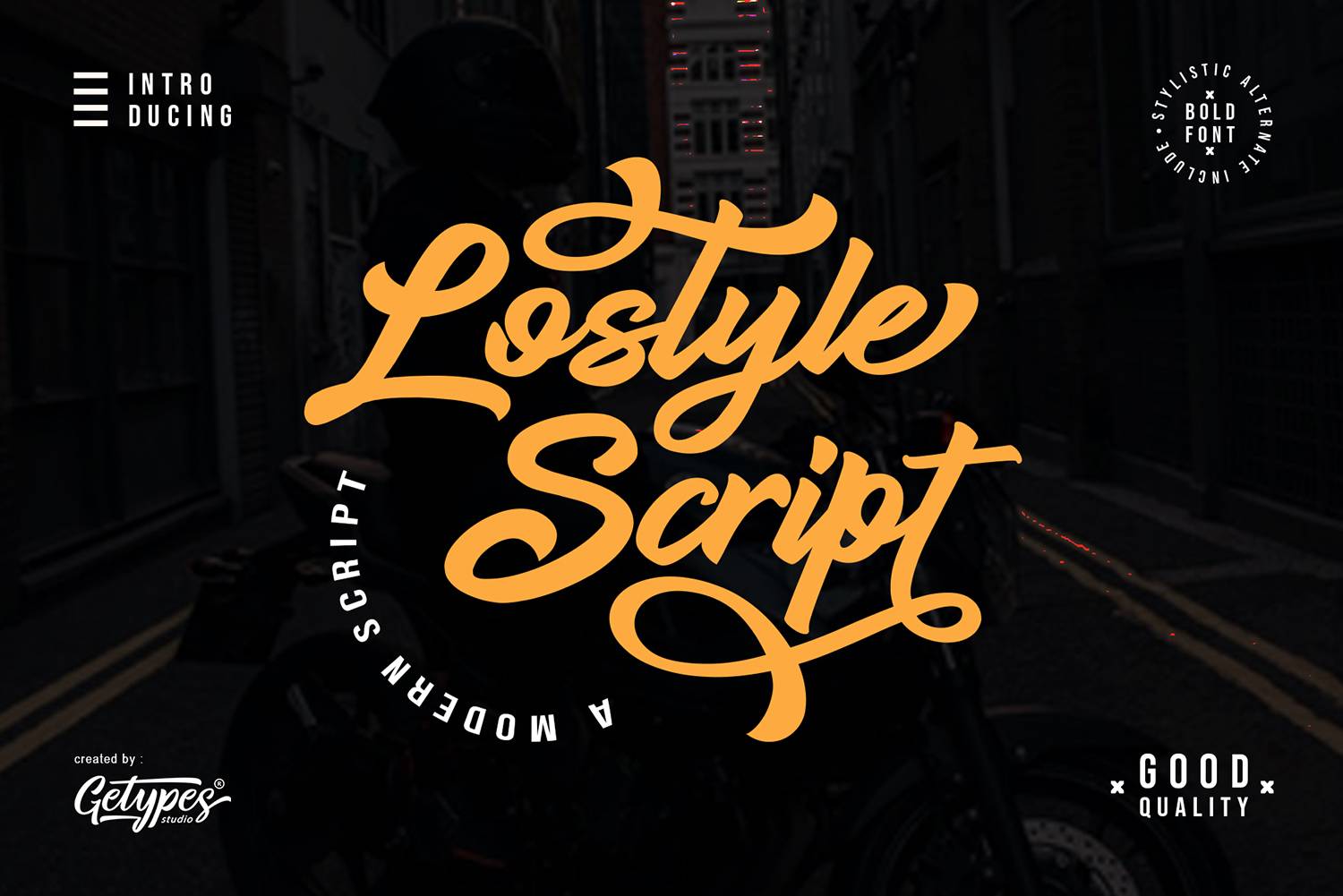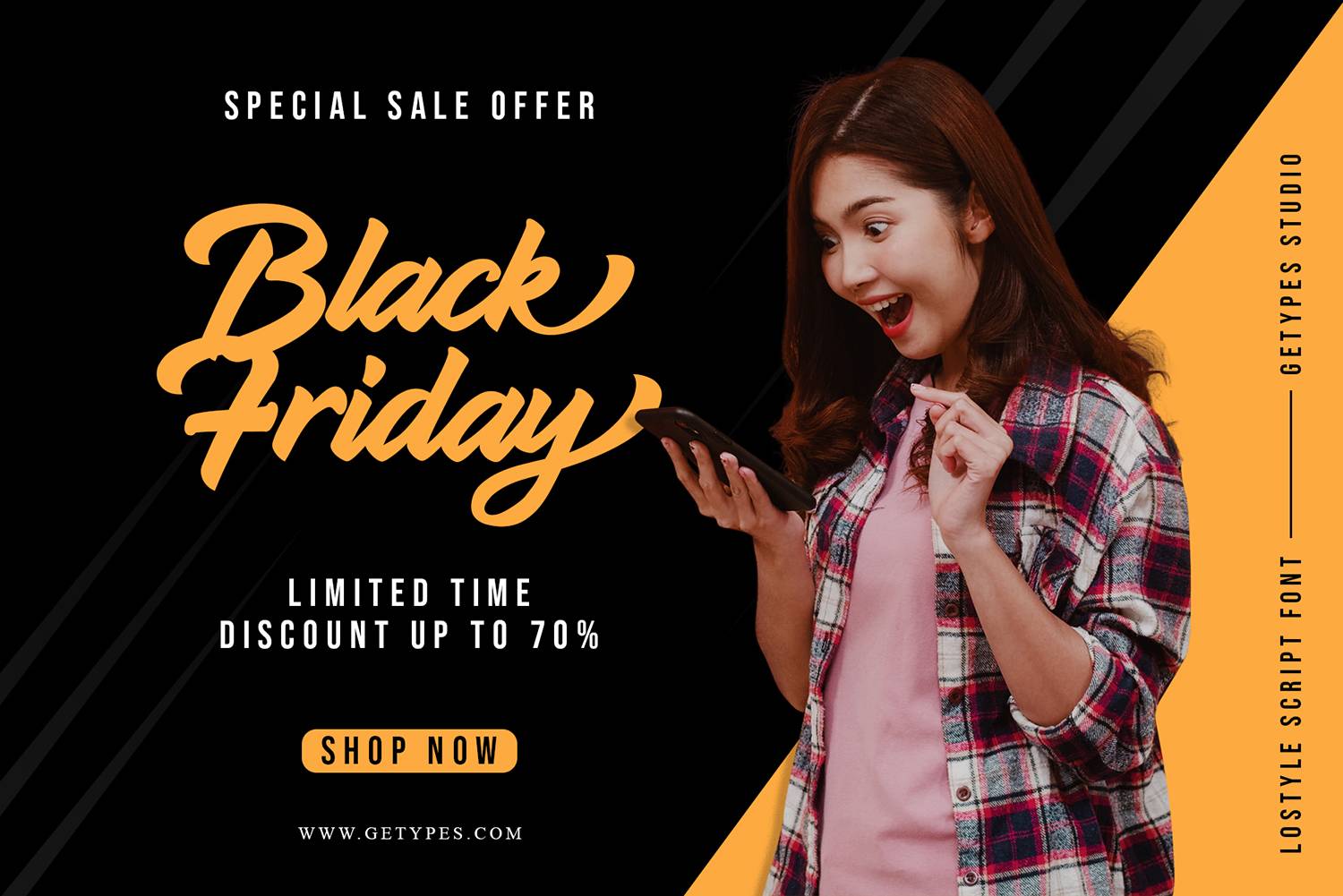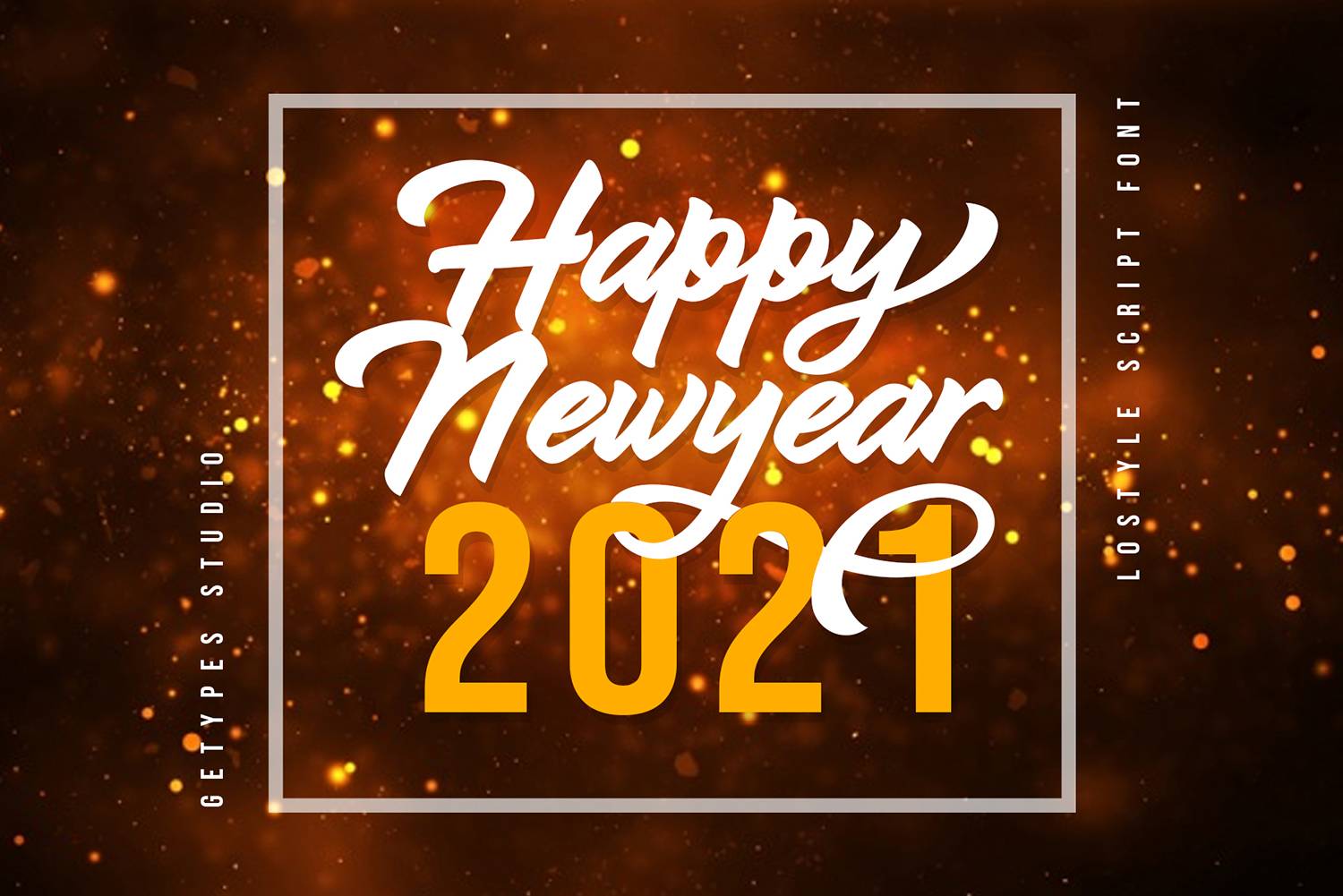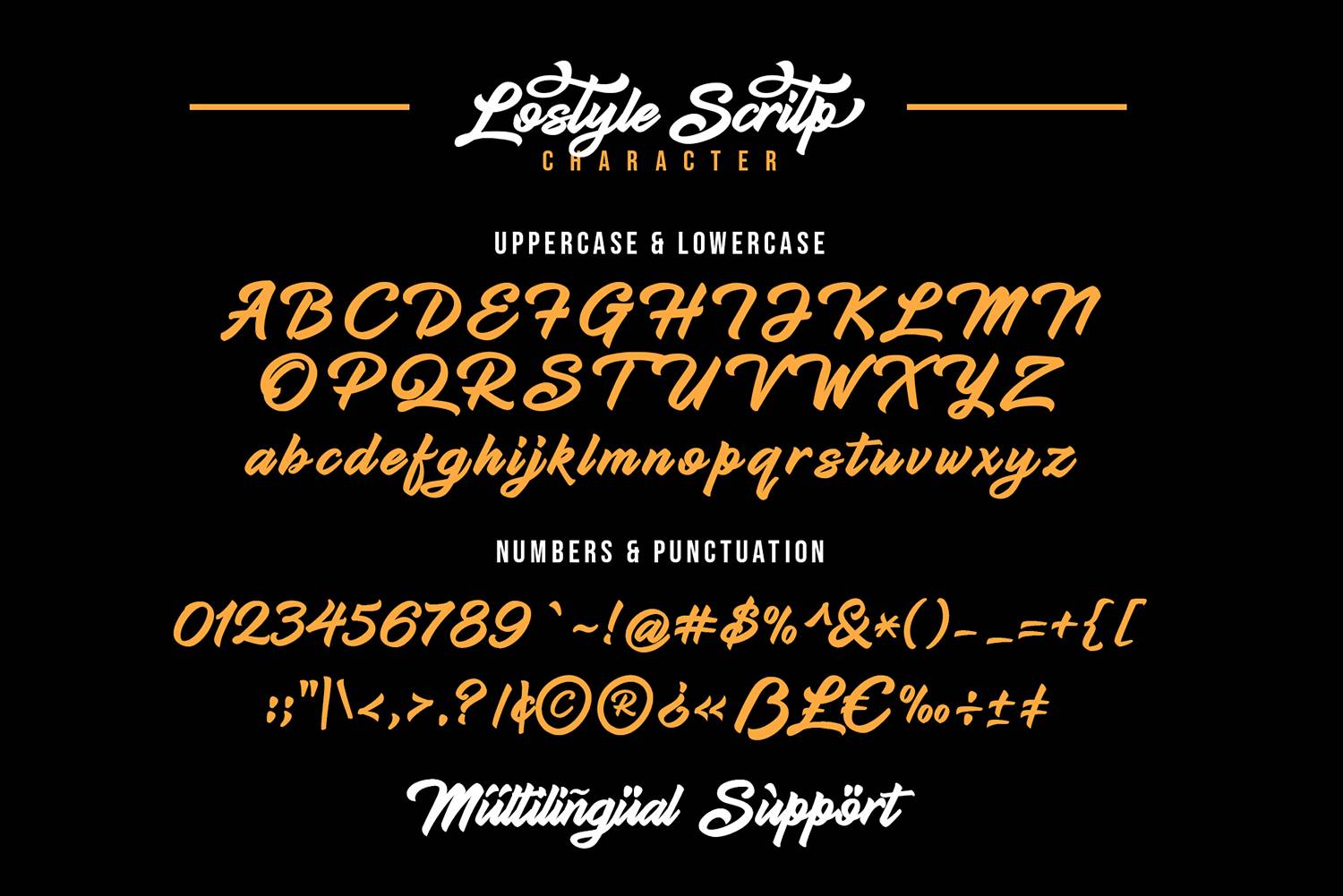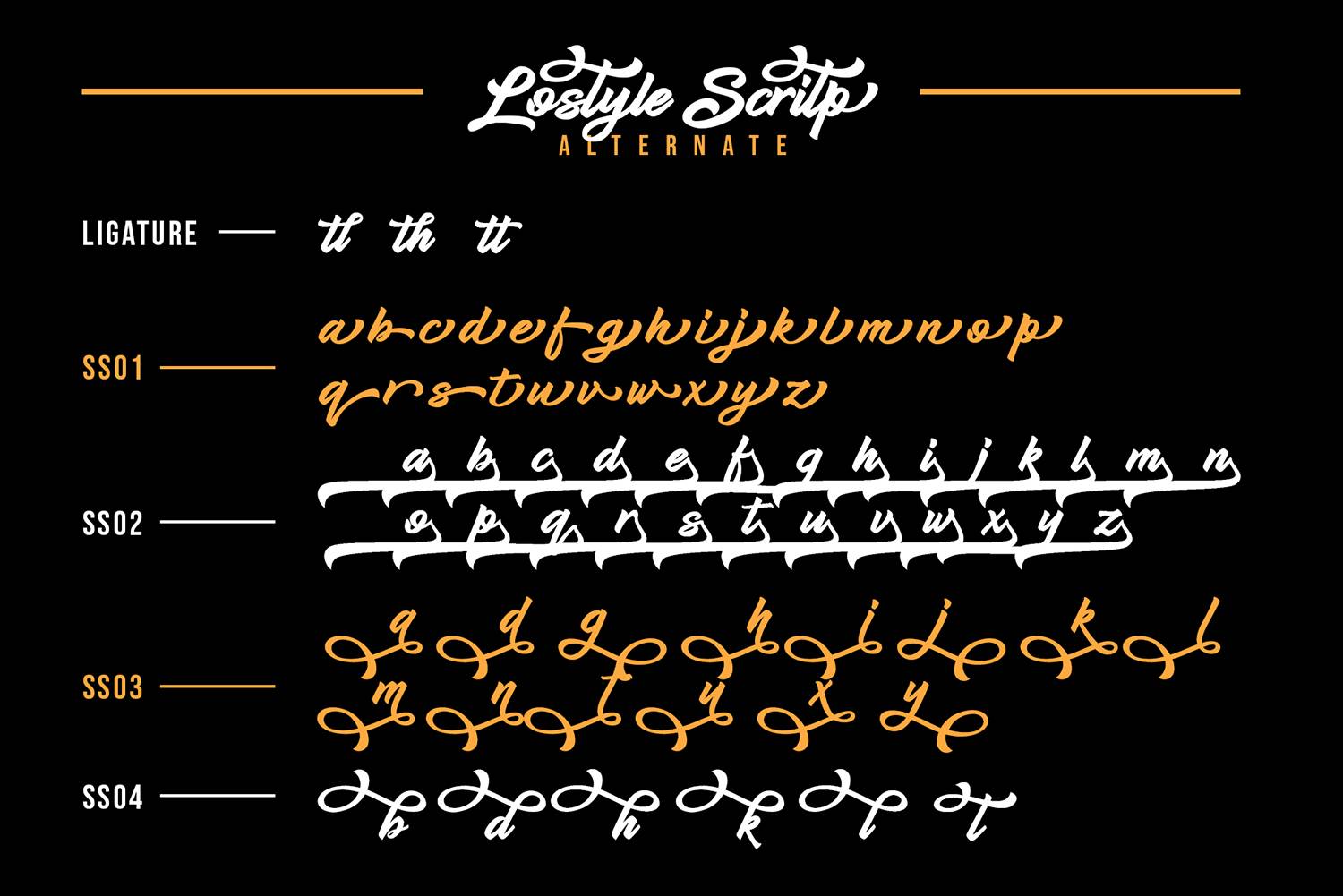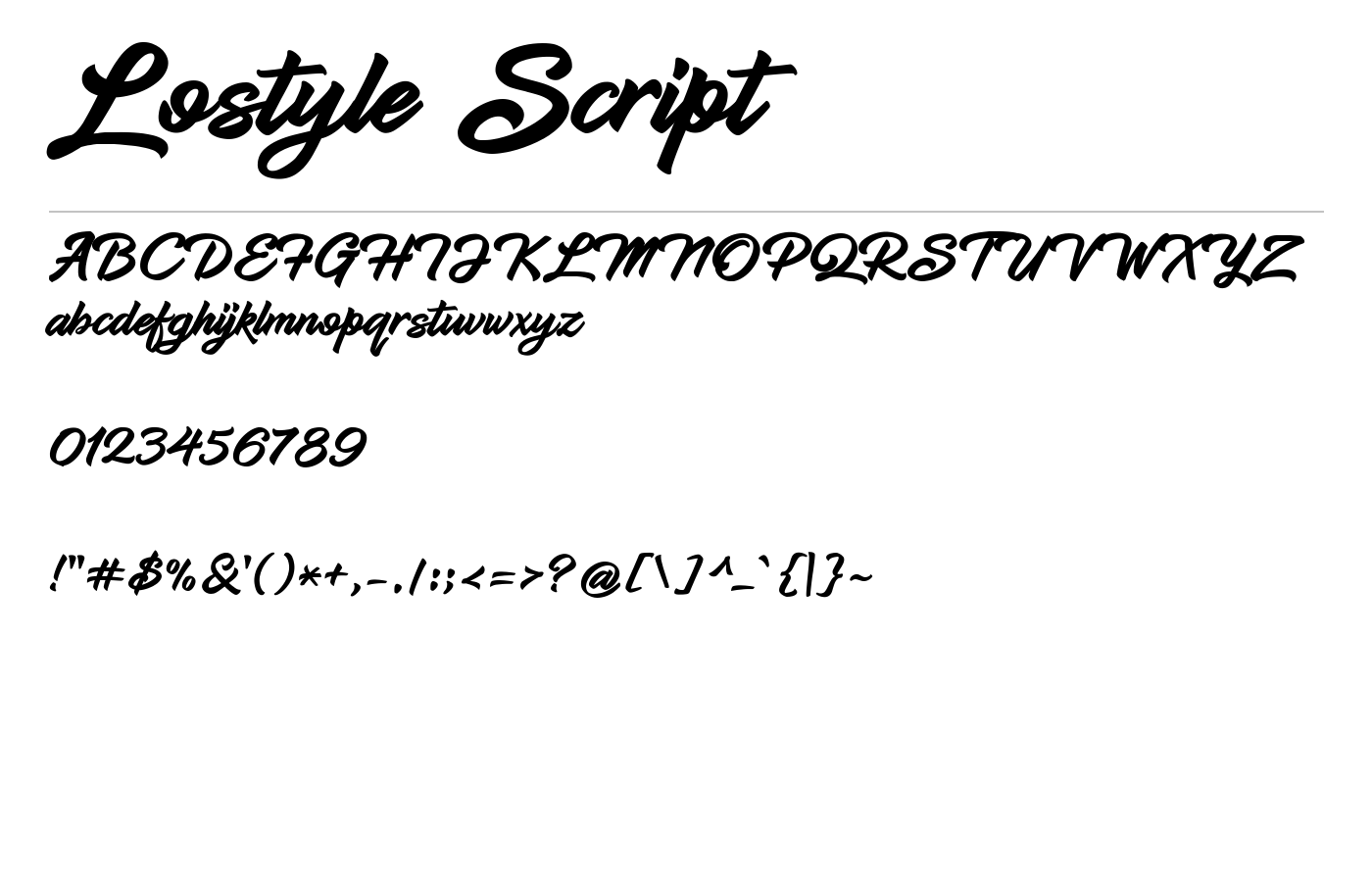
Lostyle Font is a bold, flowing script typeface with a handwritten feel that combines sporty energy and casual elegance. Its smooth, connected strokes and dynamic letterforms make it ideal for branding, logos, and headlines where a lively, stylish personality is desired. This font works well in creative packaging and modern editorial design, bringing a fresh, confident vibe to any project.
Lostyle Font
About Lostyle Font
| Font family | Lostyle Font |
| Release date | 2020-11-10 |
| Designer | Muhammad Rizaldi |